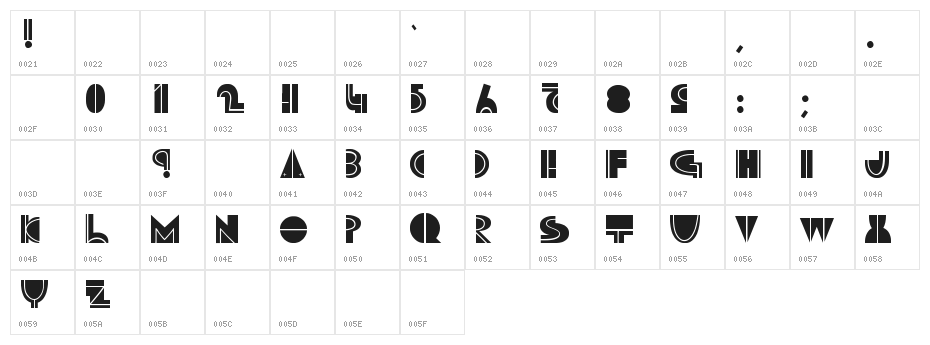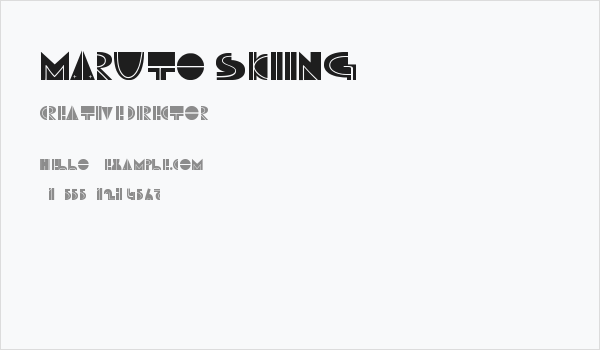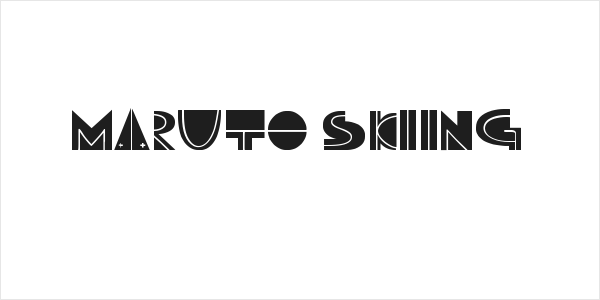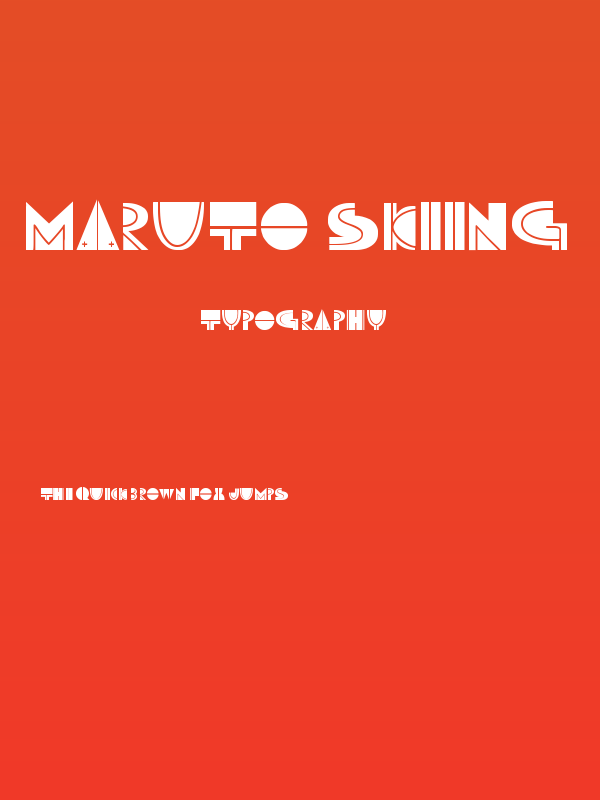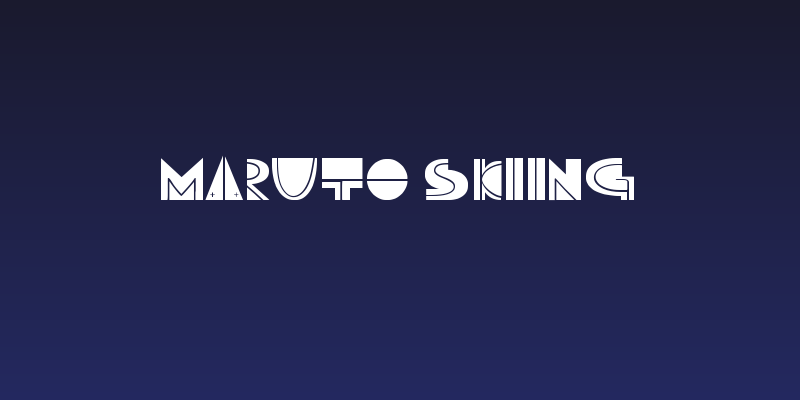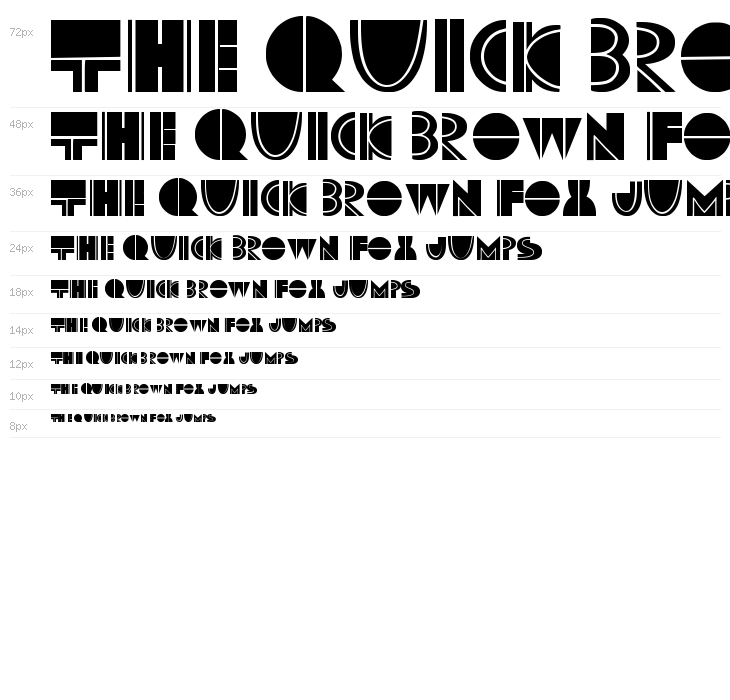
Maruto Skiing Font
Maruto Skiing Description
This font features a bold and geometric design, characterized by its sharp angles and distinct shapes. Each letter is crafted with a unique combination of straight lines and curves, creating a modern and artistic appearance. The uppercase and lowercase letters maintain a consistent style, with some characters incorporating cut-out sections that add to the font's visual intrigue. The numbers follow the same geometric theme, ensuring uniformity across all characters. Special characters like the exclamation mark and question mark are also designed with the same bold and striking style, making this font ideal for eye-catching displays.